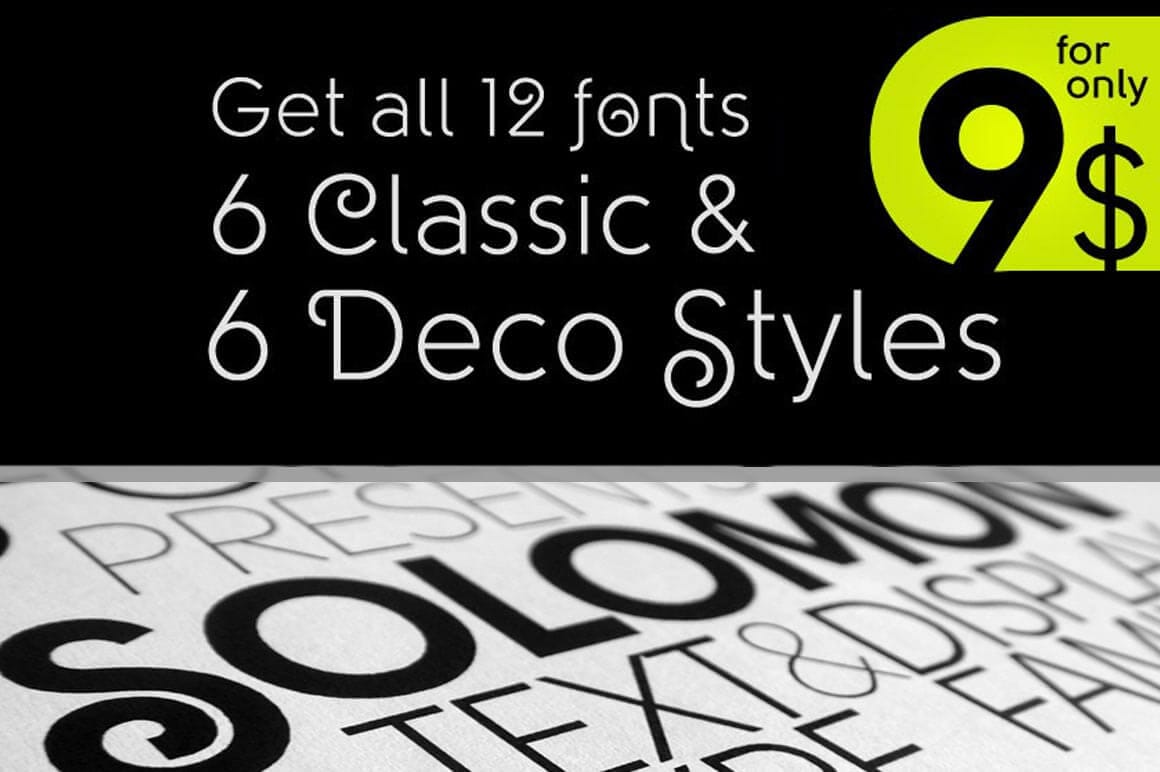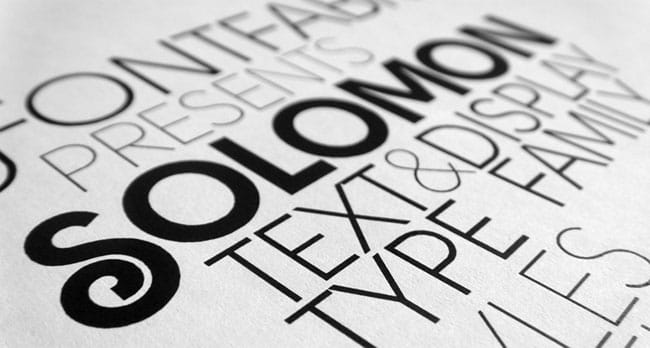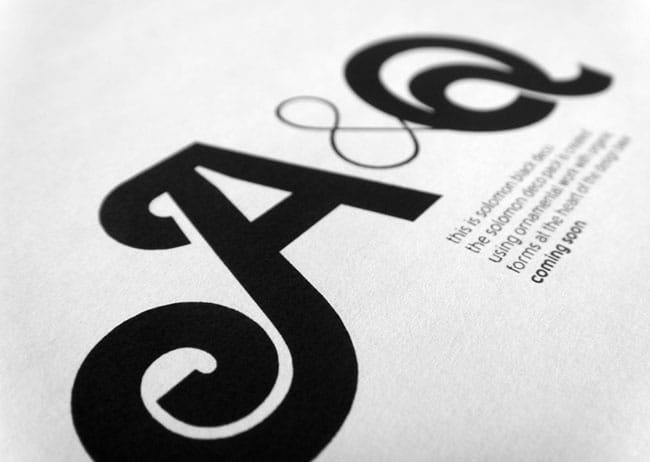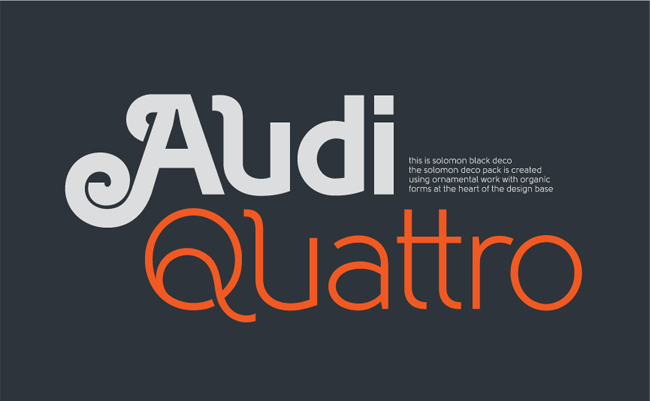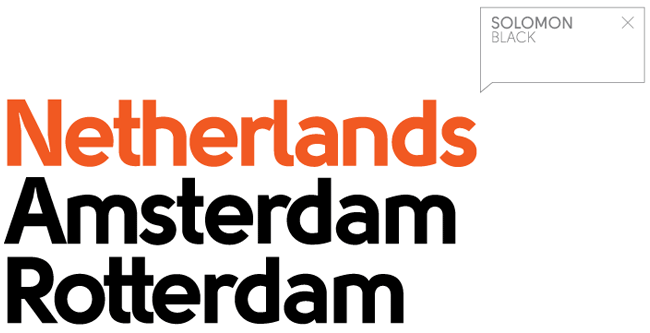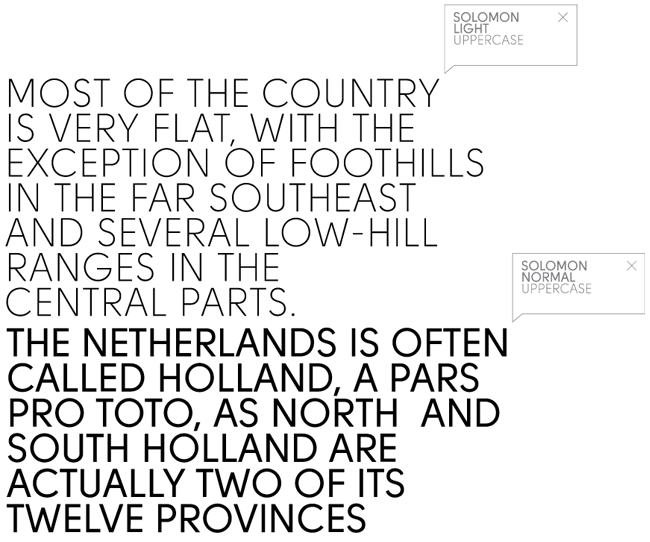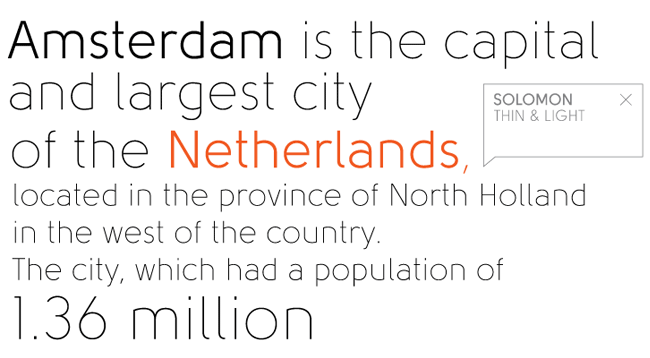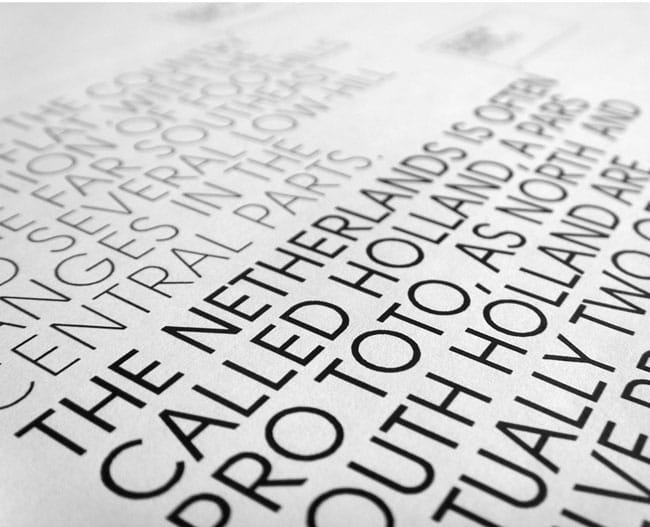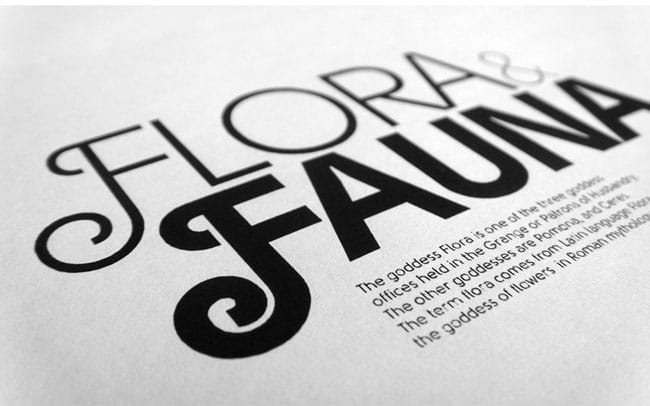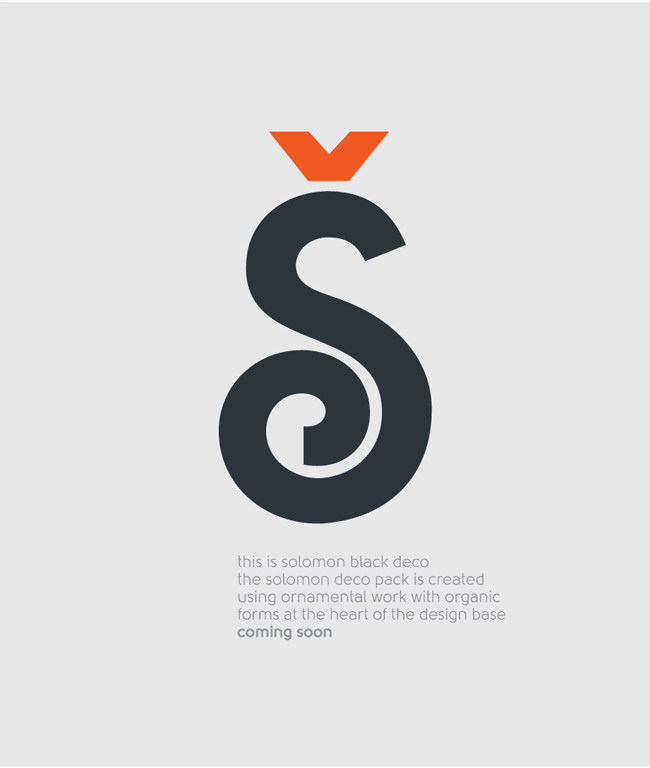
Fonts can be so much fun to work with. Whether you’re creating a logo, a T-shirt or a funky poster, having the right font can make all the difference. If you’re looking for something new, something clean, and something fun, you’ve come to the right place. This Mighty Deal offers up the Solomon Font Family, from Fontfabric, at a ridiculously reduced price.
Solomon Font Family Highlights:
- 12 Total Fonts
This collection of the Solomon Font Family includes 6 unique Deco Styles, as well as 6 different weights. That’s a total of 12 different fonts to bring your fabulous project to life. - Legible and Entertaining
Besides sporting some excellent legibility, the Solomon Font Family can be characterized as having a well-finished geometric design with optimized kerning. It’s perfect for any kind of headline, not to mention text blocks. - Decorative Font
The deco fonts in this set are bold and ornate, while still being legible. Gorgeous without being over flowery. They were custom created using ornamental work with organic forms at the heart of the design base. - 50+ Languages